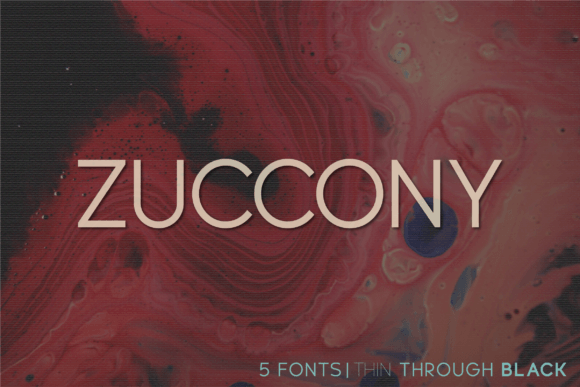
Introducing Zuccony, the ultimate font family that will transform your wedding text into a work of art. Created by the talented designers at Huntype, Zuccony combines elegance, modernity, and versatility like no other font out there. It is the perfect choice for anyone looking to elevate their designs and captivate their audience.
With its five distinct weights - THIN, LIGHT, REGULAR, BOLD, and BLACK - Zuccony offers endless creative possibilities. Whether you want to add a subtle and delicate touch to your wedding invitations or make a bold and impactful statement with your wedding website, this font family has got you covered.
Imagine your wedding invitations adorned with the graceful curves and clean lines of Zuccony. Your guests will be instantly captivated by the sheer sophistication and contemporary style that this font exudes. It will set the tone for your special day and leave a lasting impression on everyone who receives your invitation.
But Zuccony doesn't stop at wedding invitations. It is also perfect for designing wedding menus, place cards, save-the-dates, and even your wedding website. Its versatility allows you to create a cohesive and visually stunning wedding experience from start to finish.
What sets Zuccony apart from other fonts is its meticulous craftsmanship. Every curve, every line has been carefully designed to ensure maximum legibility and visual appeal. Your wedding text will not only be easy to read but also a feast for the eyes.